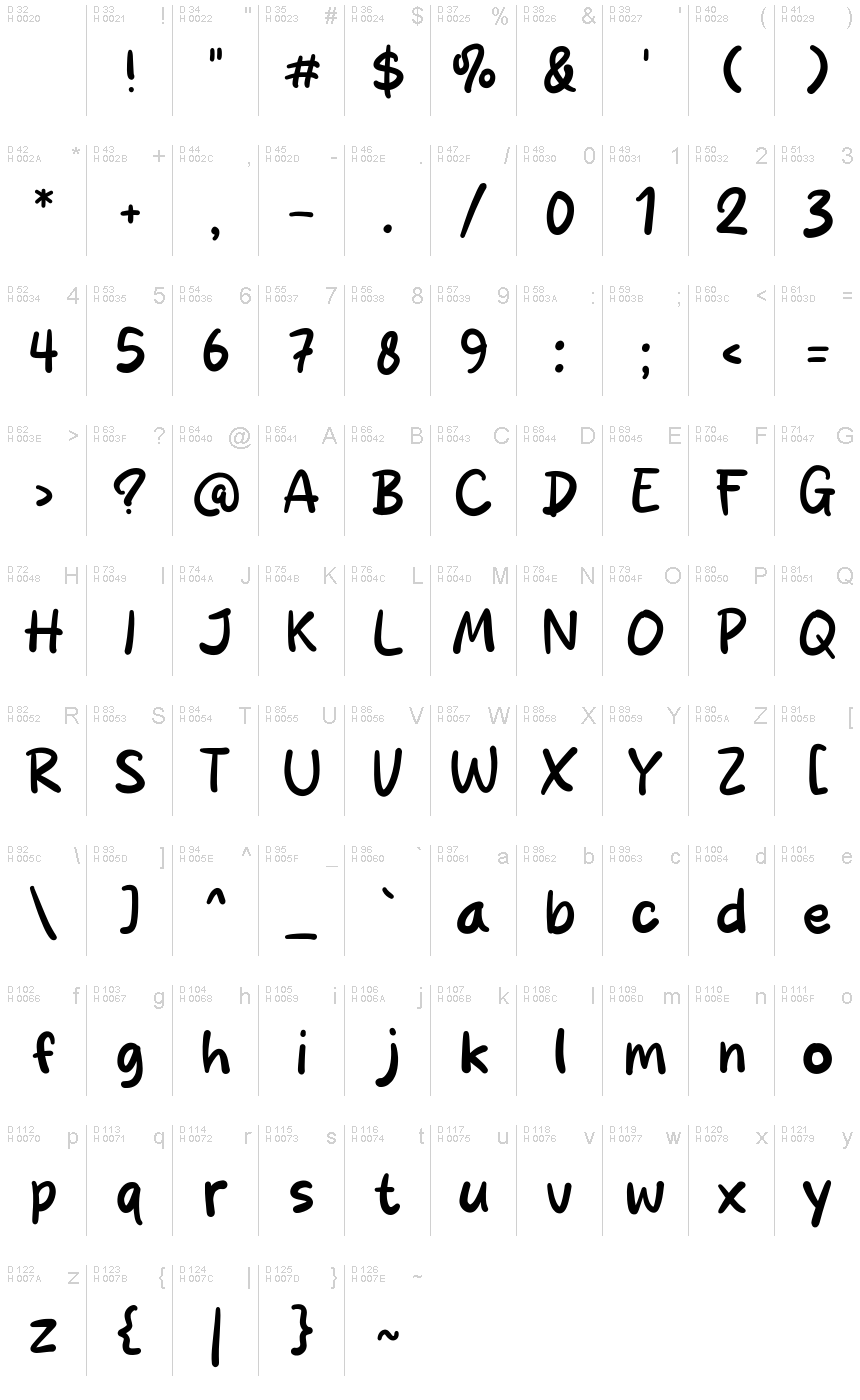
Snack Box
The Snack Box font by Khurasan exudes a delightful, handwritten charm that immediately captures the eye. With its playful, organic strokes and distinctive character forms, this font radiates a sense of warmth and personality. The fluid, natural lines and slight irregularities create a captivating visual appeal, evoking a charming, artisanal essence.
Snack Box's versatility makes it a versatile choice for a wide range of design applications. Its whimsical, handcrafted aesthetic lends itself well to branding, packaging, editorial layouts, and various creative projects that require a touch of authenticity and personalization. Whether used for titles, headers, or accent elements, Snack Box has the power to elevate the overall aesthetic and convey a genuine, heartfelt message.